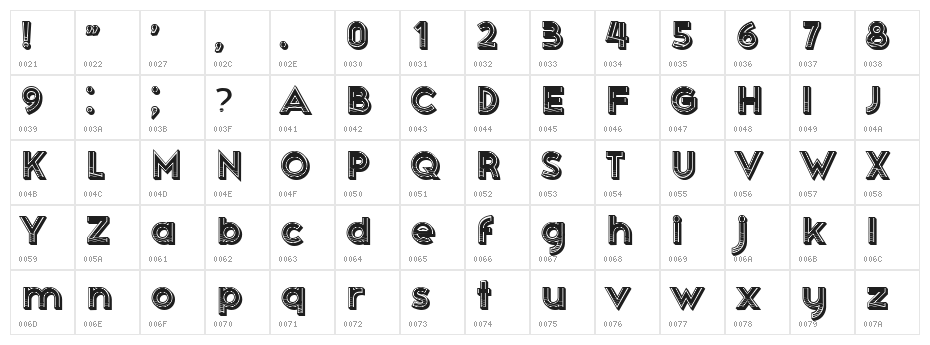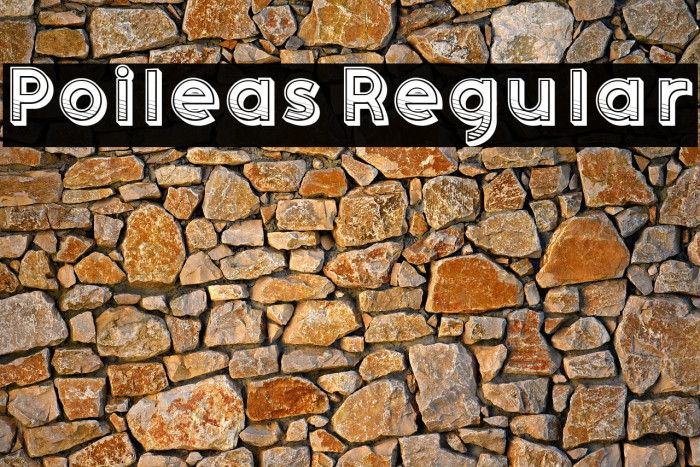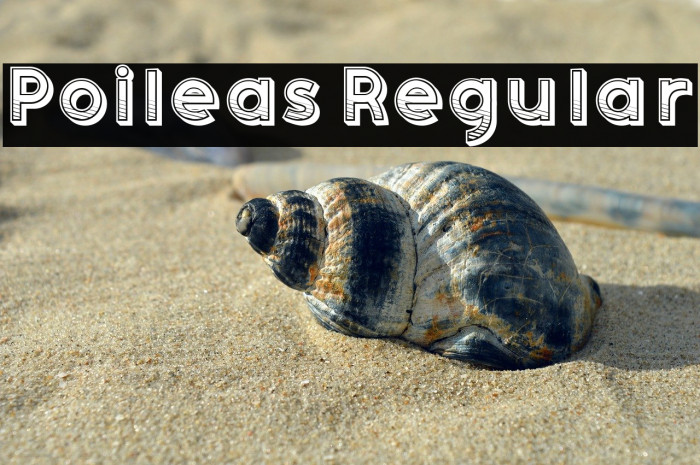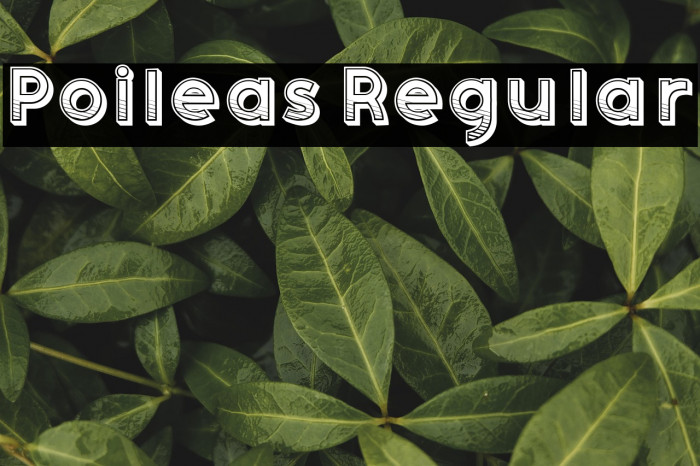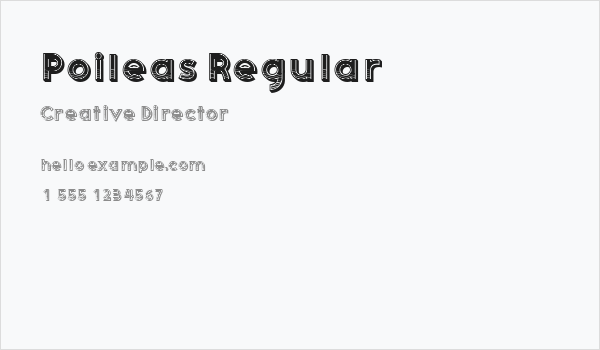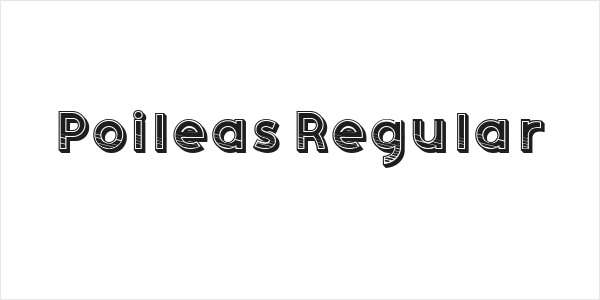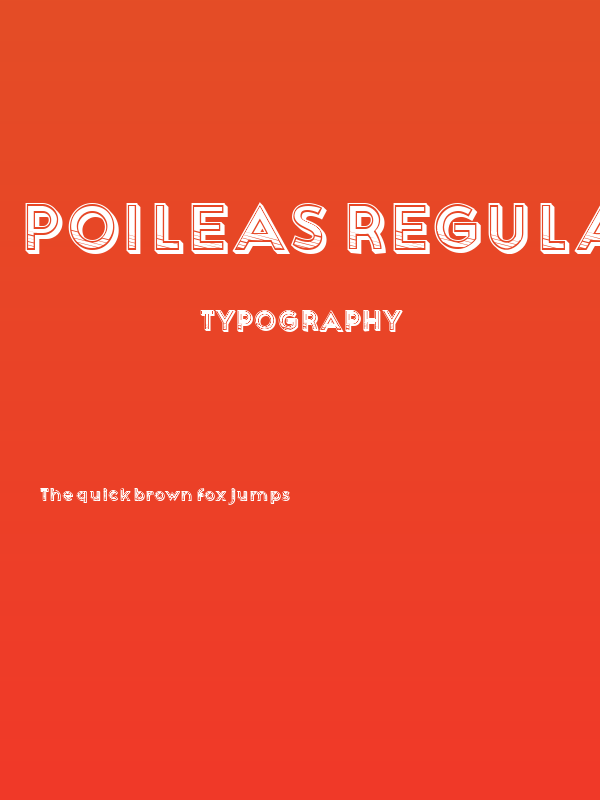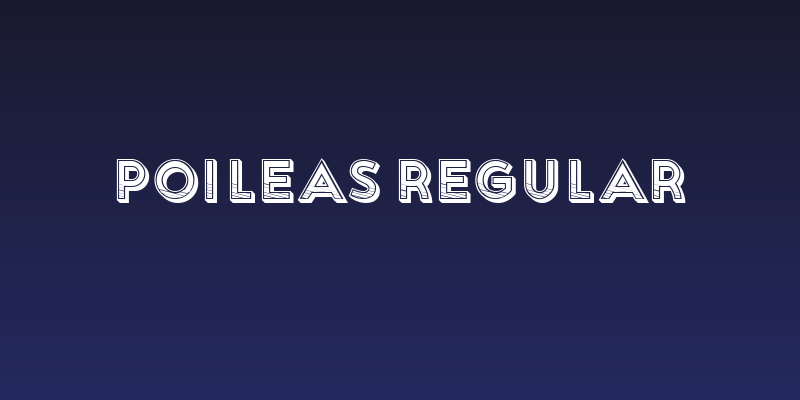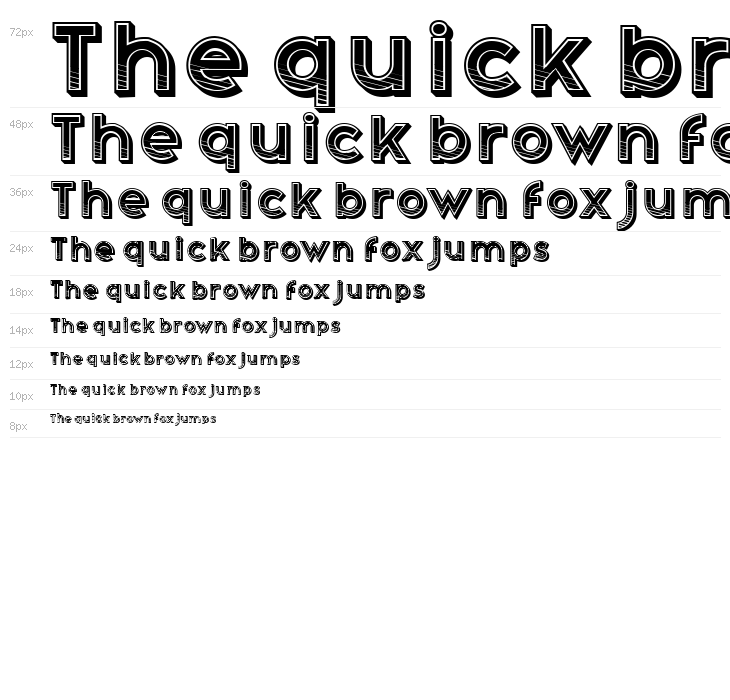
Poileas Regular Font
Poileas Regular Description
This font features a bold, decorative style with a unique striped pattern within each character, giving it a three-dimensional effect. The uppercase and lowercase letters maintain a consistent design, with clean lines and geometric shapes. The numerals and special characters follow the same stylistic approach, ensuring uniformity across all elements. The font's playful yet structured appearance makes it stand out, ideal for creative and eye-catching designs. Its distinct look is both modern and retro, blending contemporary aesthetics with a hint of vintage flair.
| Overall Style | Modern, Vintage |
| Proposed Projects | Ideal for posters, logos, headlines, and branding materials that require a striking and memorable visual impact. |